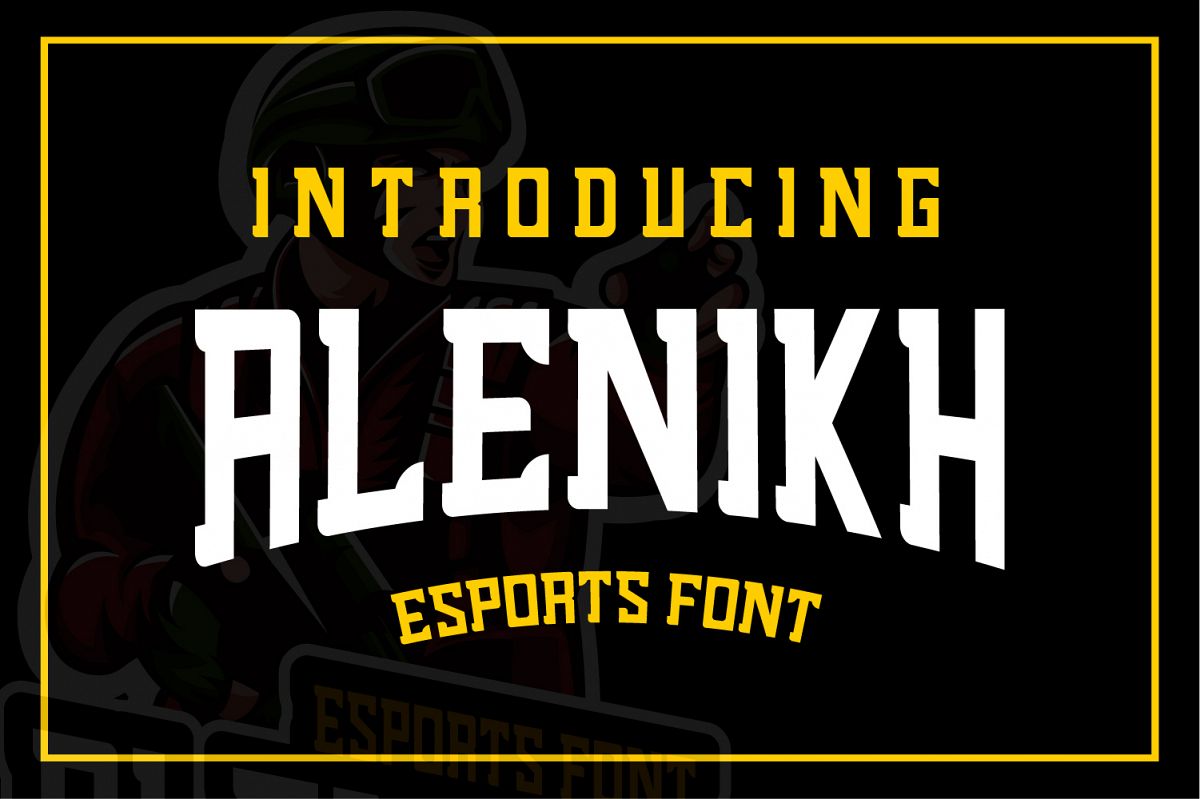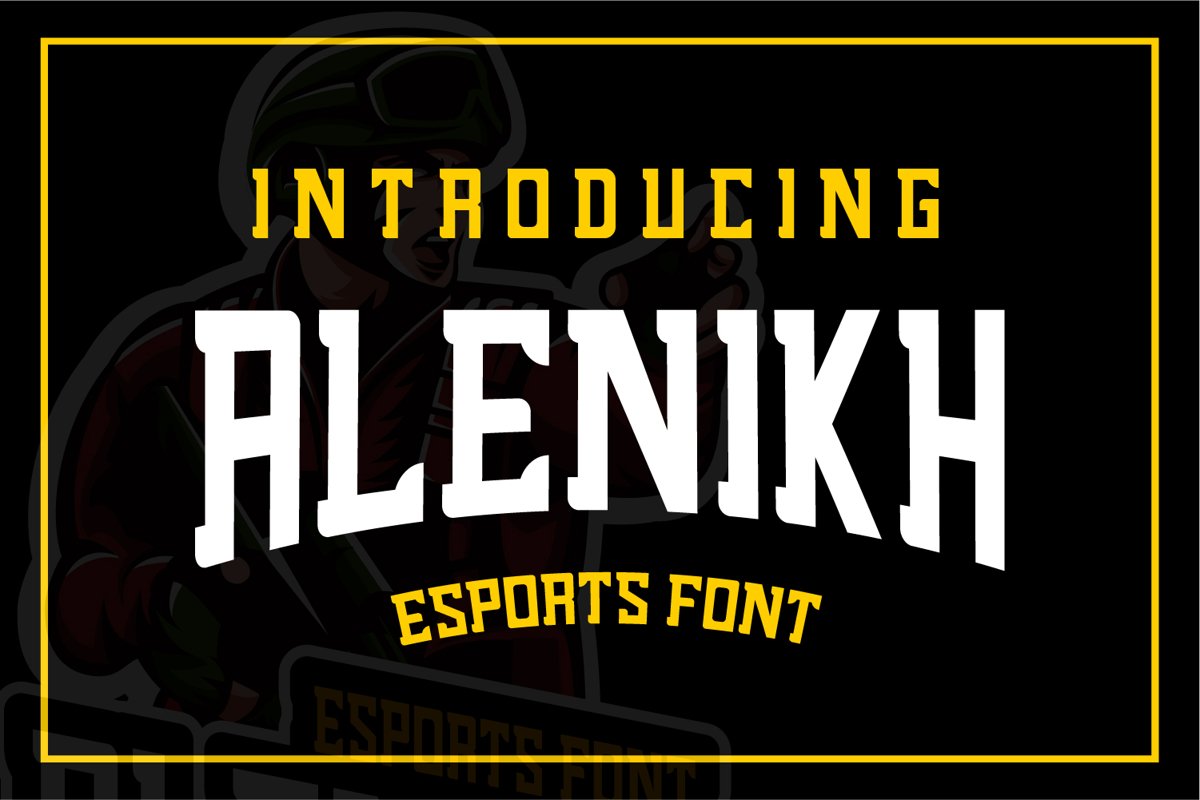
Alenikh Esports Font Logo
Alenikh is a hand-lettered box and smooth script.This font is awesome for your creative project such as Logotype, esports, Branding, Packaging, Merchandise,  label, and much more.
Alenikh comes with standard character, numeral, punctuation and also alternates, standard and discretionary ligatures which  let you customize your designs.